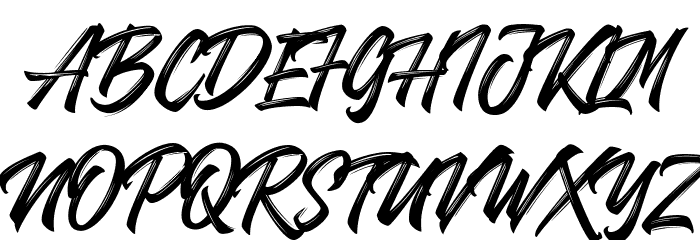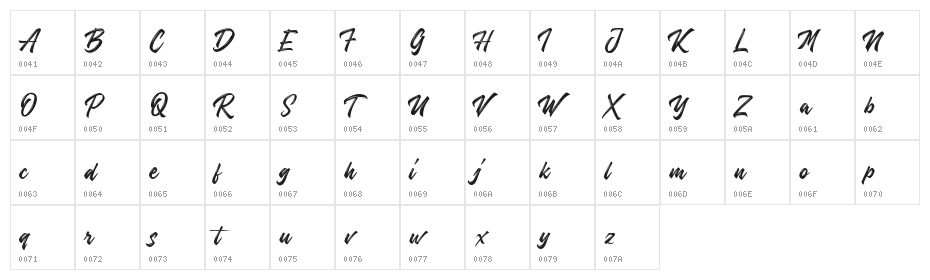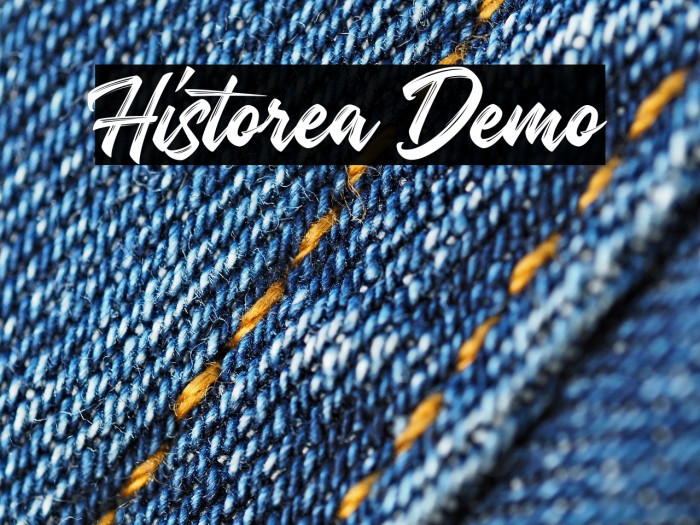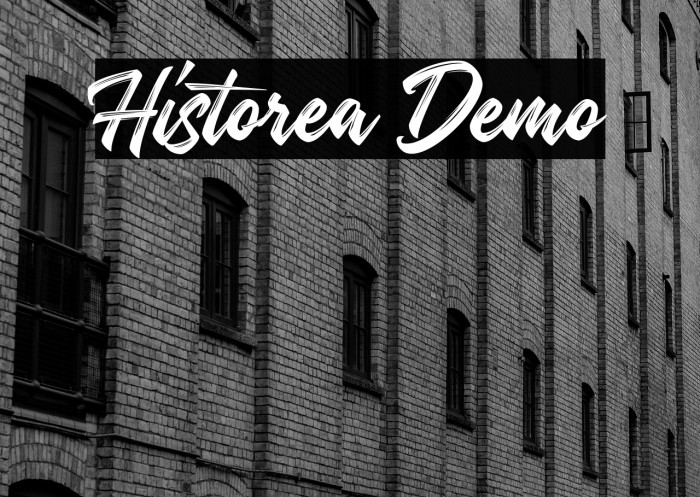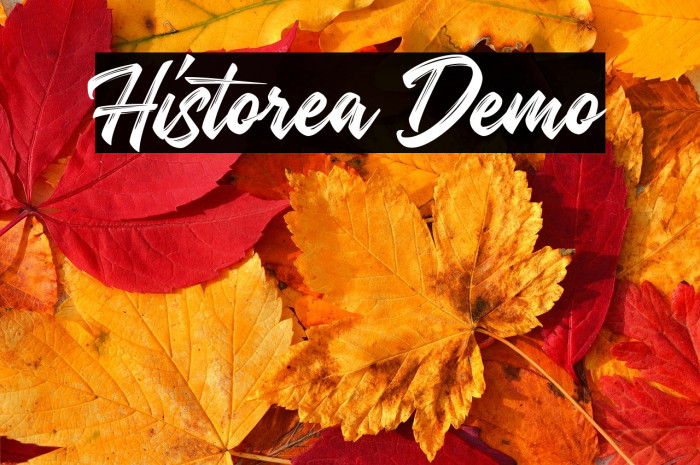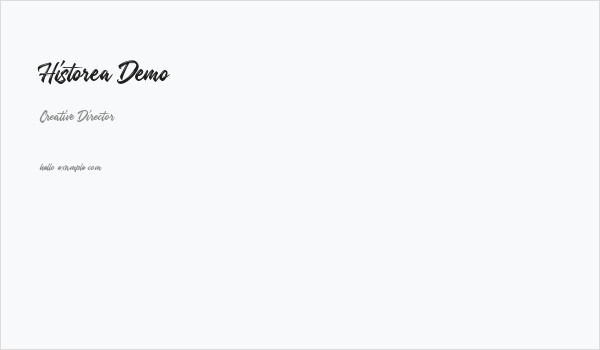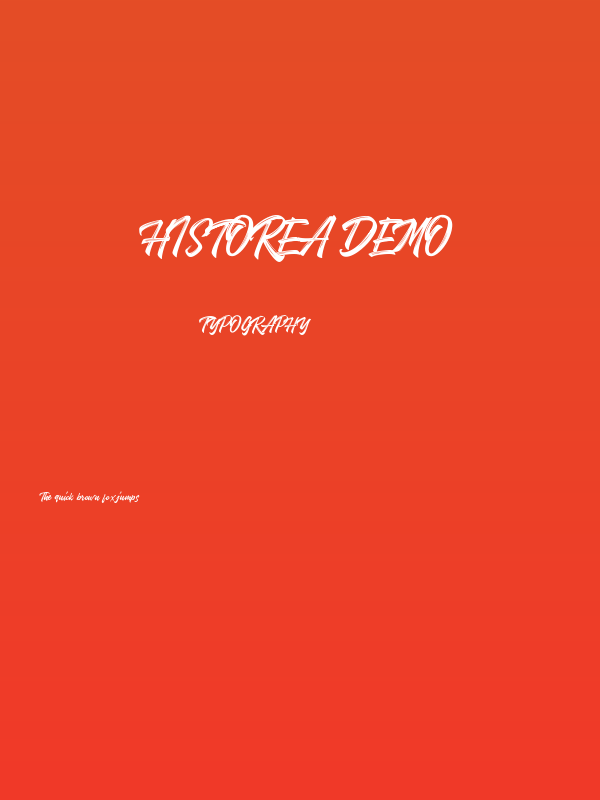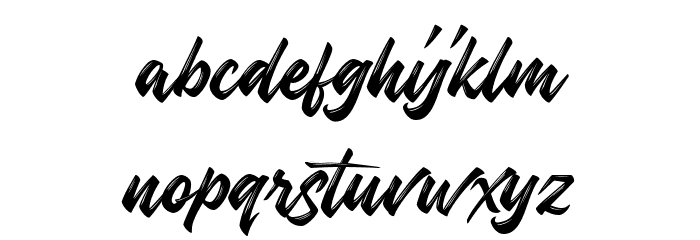
Historea Demo Font
Historea Demo Description
This font features a bold and dynamic script style with a strong presence. The letters are characterized by their sweeping, fluid strokes and a sense of movement, giving it an energetic and expressive feel. The uppercase letters are particularly striking, with exaggerated curves and sharp angles that add a dramatic flair. The lowercase letters maintain a consistent flow, complementing the uppercase with a slightly more restrained elegance. The overall design is reminiscent of calligraphy, with a modern twist that makes it suitable for contemporary designs. The font's boldness and unique style make it ideal for projects that require a standout, artistic touch.
| Proposed Projects | Ideal for branding, logos, posters, and invitations where a bold, artistic statement is needed. |